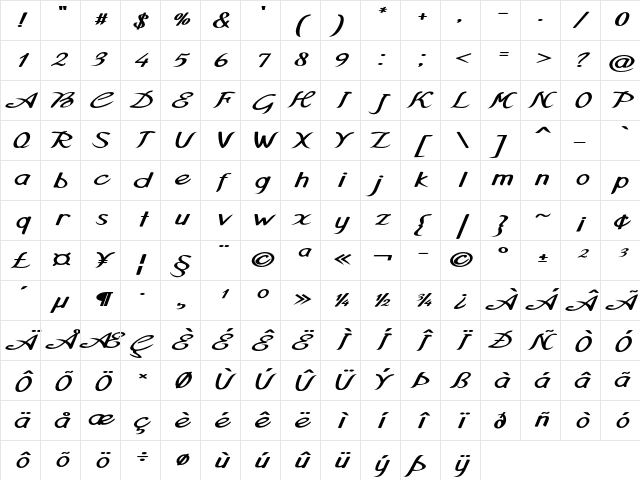
Cloverleaf Expanded Bold
Style: Expanded Bold
Cloverleaf Family
Cloverleaf Expanded Bold
Complete Cloverleaf Expanded Bold glyph index. Displaying only characters natively supported by Cloverleaf Expanded Bold font.
Design Context for Cloverleaf
Cloverleaf is a composed and adaptable typeface that performs quietly and consistently across a wide range of design contexts. Its bold stroke weight gives it real presence on the page.